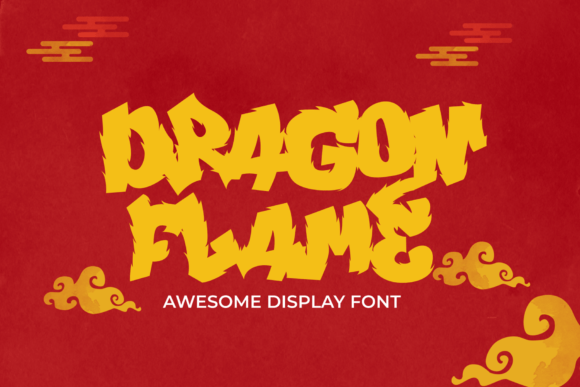
Drafting a Bold Brand Identity with Dragon Flame Typeface
I opened the blank brand board this morning with a specific challenge: creating a visual identity for a local artisanal coffee roaster that needed to scream "bold" without feeling aggressive. The client wanted something that captured the heat of the roasting process and the energy of the morning rush, but they were tired of the standard clean sans-serifs dominating the market. That was when I decided to test Dragon Flame, a spectacular display font whose characters channel the raw power and mystique of dragon fire. As soon as I dragged it onto my canvas, the entire mood of the project shifted. It wasn't just a typeface; it felt like an active ingredient in the design.
Dragon Flame Display Fonts for Coffee Shop Signage and Menu Design
The first step in any branding project is establishing the primary voice, and for this coffee shop, that voice needed to be loud and memorable. When I applied Dragon Flame to the mockup of the storefront sign, the results were immediate and striking. Unlike generic fonts that can look flat on large formats, this display font carries a texture that mimics the flickering of flames. It creates an instant sense of movement, making the static letters feel alive even from a distance. For a business selling roasted beans, the connection between the name and the typography had to be visceral, and these fonts delivered exactly that kind of thrilling choice for projects that need to stand out on a busy street.
Inside the menu design, the hierarchy became effortless. Using the heavy weights of the font for section headers like "House Blends" or "Espresso Bar" created a natural visual anchor. The boldness of the letterforms guided the customer's eye down the page without needing excessive spacing or graphic elements. It proved that a single strong font can often replace the need for complex layout structures, saving time while increasing impact. The characters themselves are designed with enough character to hold attention, ensuring that the menu doesn't just list items but tells a story about the quality of the roast.
Why Dragon Flame Works Best for Headline Typography in Editorial Layouts
Moving beyond signage, I tested how Dragon Flame performed in editorial contexts, specifically for social media graphics and promotional flyers. In digital spaces where users scroll quickly, headlines must stop the thumb. This font excels at that because its unique shapes create high contrast against white backgrounds. When paired with a crisp, modern sans-serif for body text, the combination creates a sophisticated yet edgy aesthetic. The display nature of the font means it shouldn't be used for long paragraphs, but for short-form text like captions, pull quotes, or call-to-action buttons, it is unbeatable.
I noticed that the font handles kerning well even at larger sizes, which is crucial for maintaining readability. Sometimes, highly stylized fonts suffer from tight spacing that makes them hard to read, but Dragon Flame balances its stylistic flair with functional legibility. This makes it a versatile tool for creative studios working on campaign materials where brand recognition is key. Whether it's a poster for a launch event or a header image for a blog post, the font adds a layer of personality that feels premium and intentional.
Integrating Dragon Flame into Packaging Design and Product Labels
The most critical part of the branding project was the packaging. For a small business owner, product labels are their billboard. I placed Dragon Flame on the mockup of the coffee bag label, and it transformed the product from a commodity into a collectible item. The raw power of the letterforms suggested strength and durability, qualities that consumers associate with high-quality coffee. The font's ability to convey "mystique" helped elevate the perceived value of the product, making it feel like a specialty item rather than a mass-market option.
When designing for print, file formats and resolution are always top of mind. Fortunately, the included styles allowed me to export vector-ready files for the packaging printer. This ensured that the sharp edges of the flame-inspired details remained crisp when scaled up for large bags or down for small sticker seals. For entrepreneurs looking to launch a new product line, having a commercial font that offers both artistic flair and technical reliability is essential. It bridges the gap between creative vision and production reality, ensuring that the final physical product matches the digital mockups perfectly.
Pairing Dragon Flame with Script Fonts for Balanced Brand Identity
A common mistake designers make with bold display fonts is using them exclusively, which can lead to a design that feels overwhelming or one-note. To create a balanced brand identity, I explored pairing Dragon Flame with a delicate script font for secondary messaging. Imagine the bold, fiery logo on a coffee cup sleeve, accompanied by a handwritten-style tagline like "Roasted with Passion." The contrast between the structured, powerful display font and the fluid, organic script creates a dynamic tension that is visually engaging.
This approach works particularly well for boutique businesses or creative studios that want to show both authority and approachability. The script softens the edge of the main logo, making the brand feel more human and accessible, while the Dragon Flame typeface ensures the core message remains dominant. Testing different combinations on various platforms—from Instagram stories to physical business cards—revealed that this pairing holds up across mediums. It demonstrates how understanding the nuances of typeface selection can elevate a simple brand into a cohesive visual system.
Testing Dragon Flame for Digital Marketing and Website Headers
Before finalizing the brand assets, I ran a series of tests on web design elements. Placing Dragon Flame in the hero section of a landing page immediately drew the user's focus. The boldness of the font commands attention without requiring bright colors or distracting animations. It serves as a perfect foundation for modern typography strategies where content is king but presentation matters. The font's distinct personality helps establish a unique tone right from the moment the page loads, setting expectations for the user experience.
The inclusion of multiple weights and alternates also added value to the package. Being able to choose between slightly more condensed or expanded versions of the letters gave us extra control over the layout. It showed that the designers behind the font understood the needs of real-world applications. For anyone looking to invest in premium design assets, this level of detail ensures that the investment pays off in the longevity and adaptability of the brand. The result was a complete visual identity that felt cohesive, professional, and ready for the market.